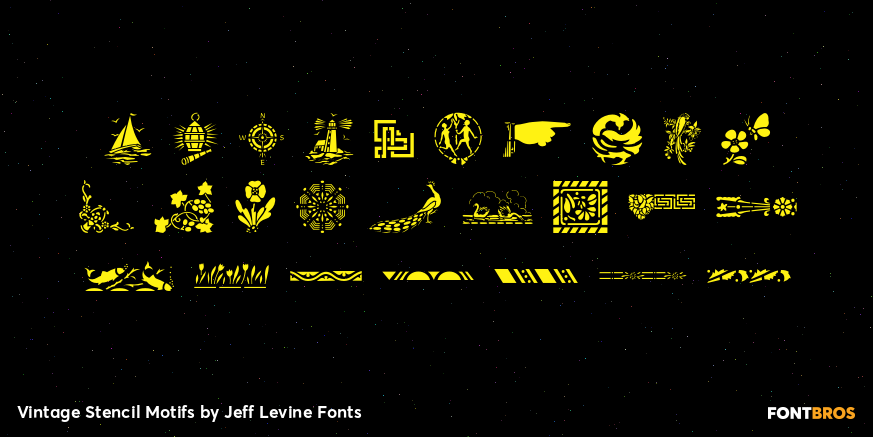
Vintage Stencil Motifs
Vintage Stencil Motifs JNL is a collection of charming and decorative designs re-drawn (as the name indicates) from vintage source material.
For decades, home decorators and do-it-yourself hobbyists embellished furniture, chests, walls and other areas with thematic stencils in both borders and topical vignettes.
Today's digital designers can use these stencil patterns to embellish text set in other stencil alphabets or by themselves to evoke the feeling of rustic Americana.